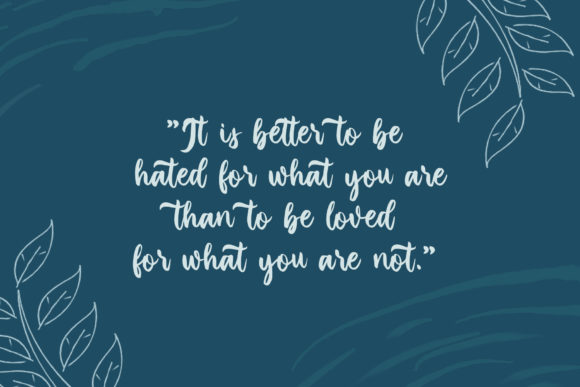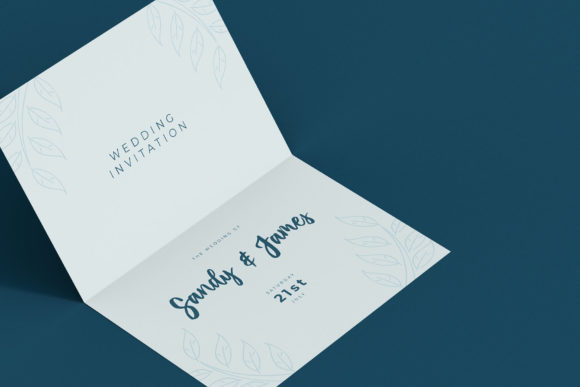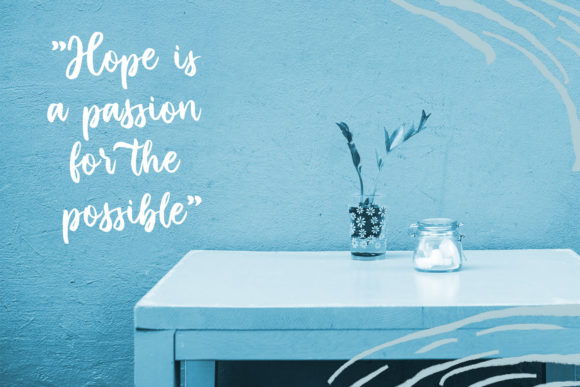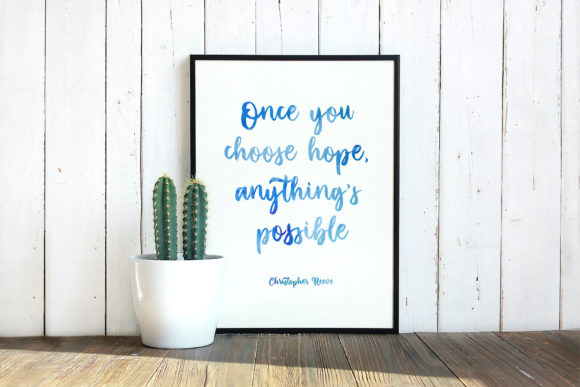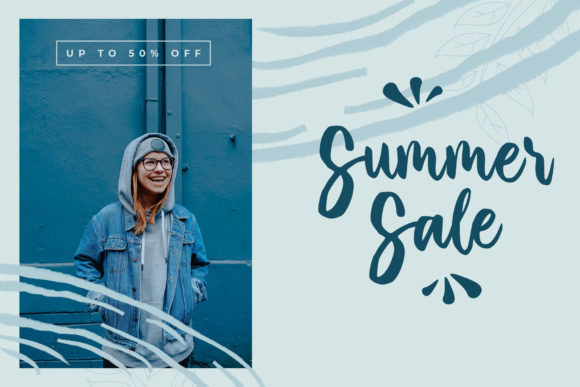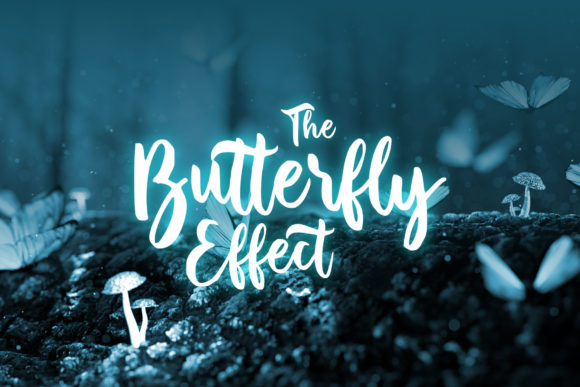
Britis Font: Elevate Your Designs with a Timeless Handwritten Touch
In the world of typography, few fonts manage to capture the essence of elegance and charm as effectively as the Britis font. This incredibly distinct, delicate, and timeless handwritten font has been making waves in the design community, and for good reason. Whether you’re working on wedding invitations, thank you cards, quotes, greeting cards, logos, business cards, or any other design that requires a personal touch, Britis font is an excellent choice.
The Unique Charm of Britis Font
What sets Britis font apart from other fonts is its unique blend of elegance and simplicity. Each letter is carefully crafted to exude a sense of refinement and sophistication, making it perfect for designs that require a high level of professionalism. At the same time, the font’s handwritten nature adds a touch of warmth and personality, making it ideal for projects that need to connect with the audience on a more personal level.
One of the standout features of Britis font is its versatility. It’s a font that can be used in a wide range of design projects, from formal events like weddings and corporate branding to more casual applications like greeting cards and quotes. The font’s adaptability makes it a valuable addition to any designer’s toolkit, as it can be used to create a cohesive visual identity across various platforms.
Weddings and other special events often require a level of elegance and sophistication in their design elements. Britis font is perfectly suited for such occasions, adding a touch of romance and whimsy to wedding invitations, save-the-date cards, and other event-related materials. Its delicate and timeless nature ensures that the designs will remain stylish and relevant for years to come.
Enhance Your Brand with Britis Font
For businesses looking to establish a strong brand identity, Britis font offers a unique opportunity to stand out from the crowd. Its elegant and refined appearance makes it an excellent choice for logos, business cards, and other marketing materials. By incorporating Britis font into their branding, businesses can convey a sense of sophistication and professionalism that resonates with their target audience.
Tips for Using Britis Font Effectively
To get the most out of Britis font, here are a few tips to keep in mind:
- Pair it with contrasting fonts: Combine Britis font with a more modern or bold font to create visual interest and hierarchy in your designs.
- Experiment with colors: While Britis font looks stunning in traditional black and white, don’t be afraid to experiment with different colors to match your brand’s aesthetic or event theme.
- Pay attention to spacing: Make sure to adjust the spacing between letters and lines to ensure that your text is easy to read and visually appealing.
Britis font is a beautiful and versatile handwritten font that can elevate any design project. Its unique blend of elegance, simplicity, and warmth makes it perfect for a wide range of applications, from wedding invitations and event designs to branding and marketing materials. Whether you’re a designer, crafter, or business owner, Britis font is an excellent choice for anyone looking to add a touch of sophistication and personality to their designs.